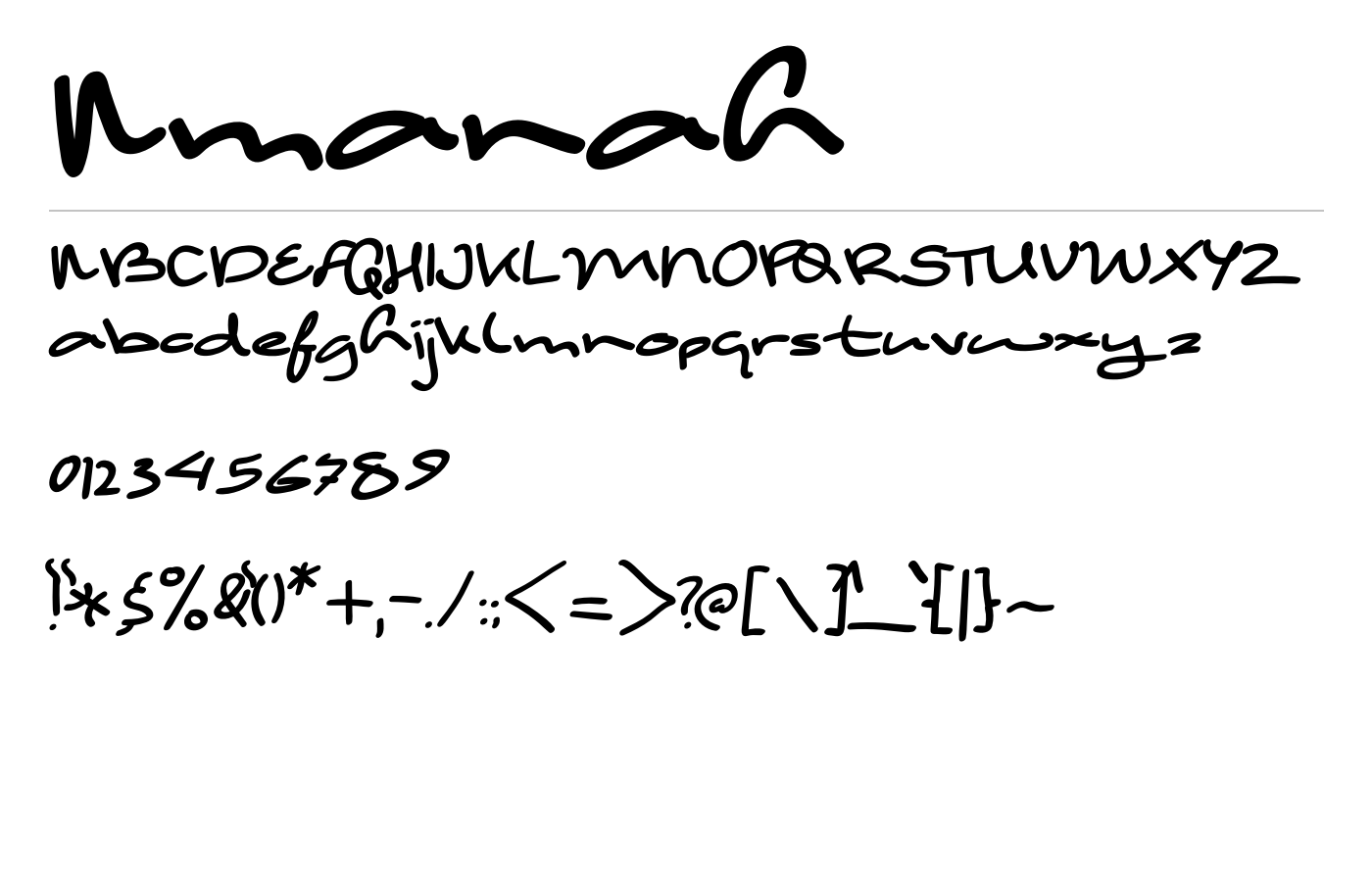
Amanah is a casual, handwritten-style font characterized by its lively, organic strokes and slightly irregular letterforms that evoke a natural, personal touch. Its medium weight and narrow width, combined with a playful yet legible design, make it ideal for informal designs, creative branding, and projects that seek a friendly, approachable vibe. This font works well for personal notes, invitations, and any context that benefits from a warm, authentic handwritten feel.
Amanah Font